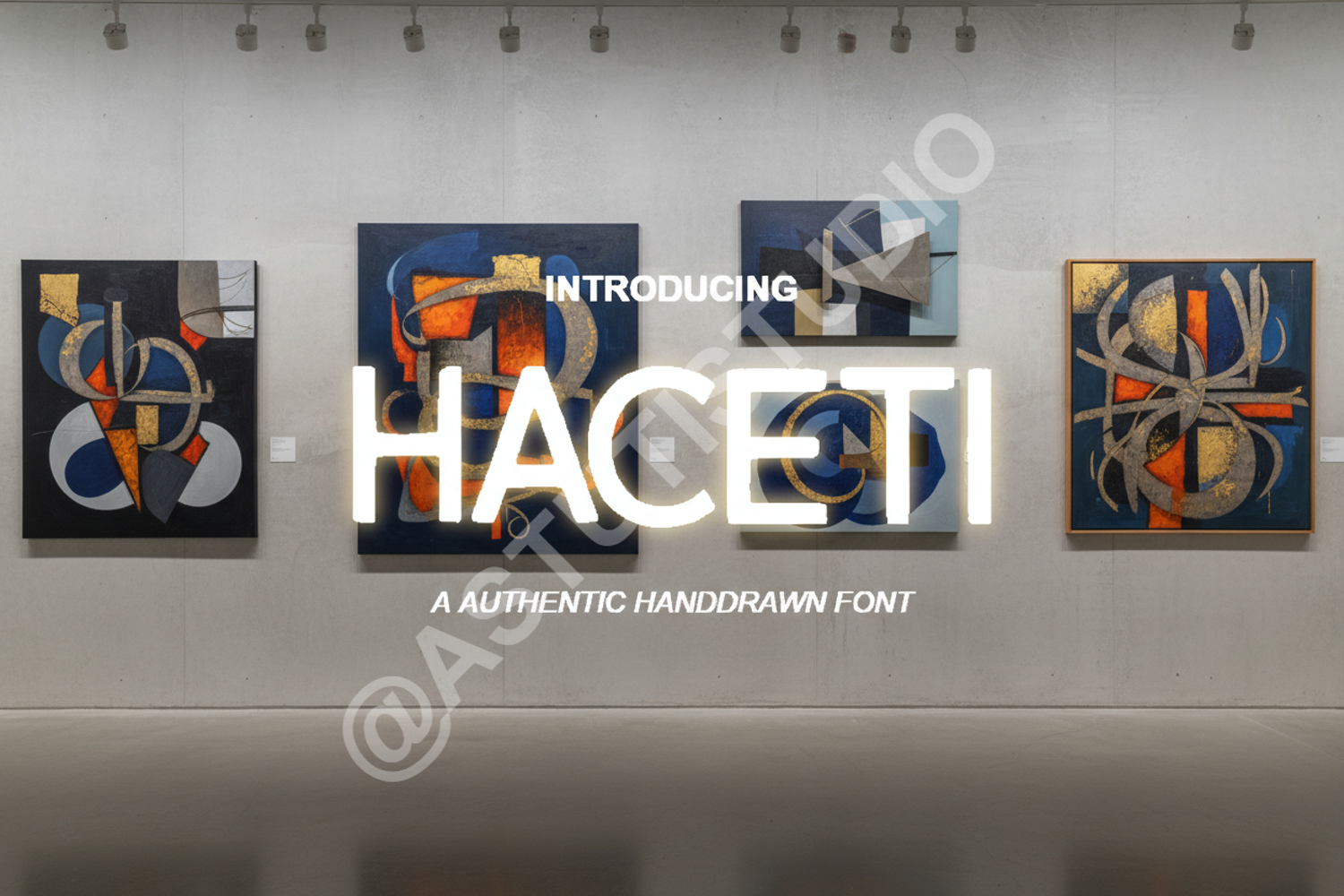
Haceti - Modern Luxury Serif Font
Haceti
Elevate your creative projects with Haceti, a premium modern serif font designed for sophistication and timeless appeal. Haceti balances clean lines with subtle decorative flourishes, making it an essential choice for designers who seek a high-end, professional aesthetic. Whether you are crafting a minimalist brand identity or a lush editorial layout, this typeface provides the versatility and elegance your work deserves.
- Branding and Visual Identity: Create memorable logos and corporate stationary that exude luxury.
- Editorial Design: Perfect for magazine headings, book covers, and high-impact layouts.
- Wedding and Event Stationery: Add a touch of class to invitations, menus, and place cards.
- Social Media Graphics: Stand out with clean, elegant typography for lifestyle and fashion content.
- Product Packaging: Ideal for premium cosmetics, jewelry, and artisanal goods.